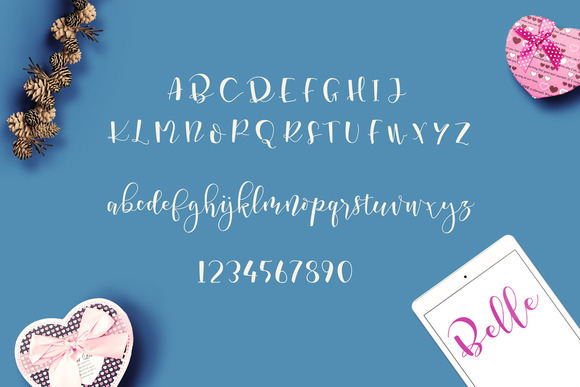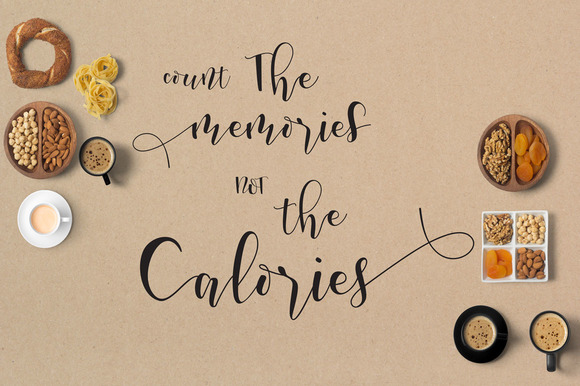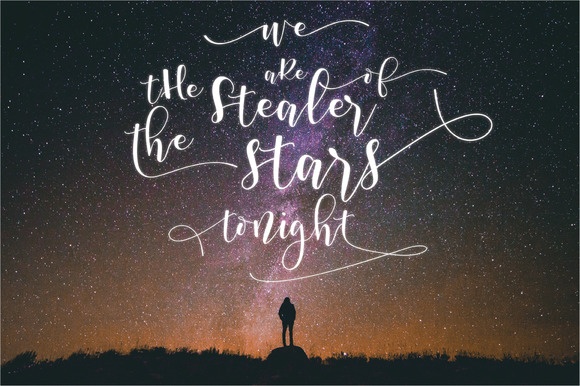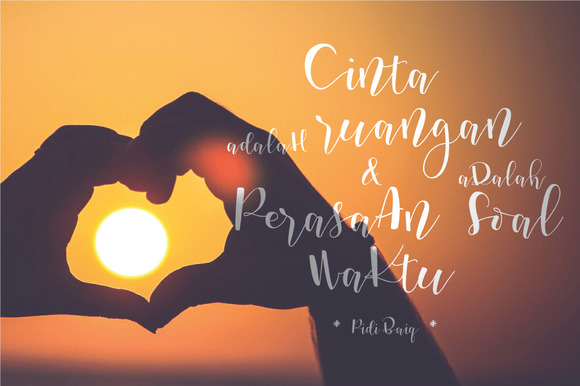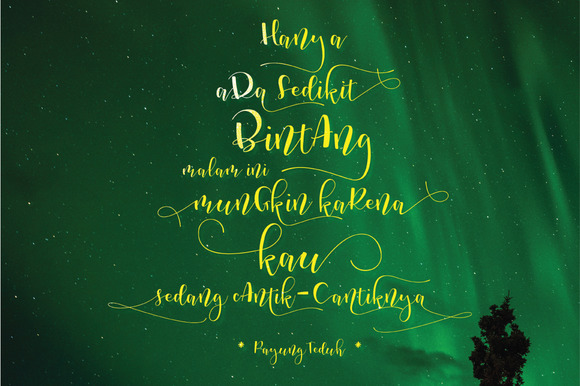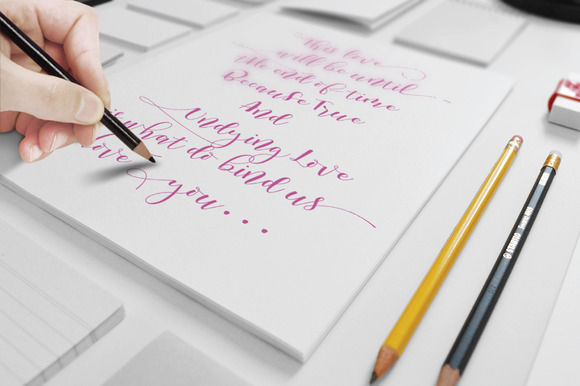
Introduction to Marsha Belle Script Font
Marsha Belle is a modern lettering typeface that comes with a dancing up and down baseline.
This beautiful font works properly and perfectly for logos, wedding invitation cards, stationary, packaging, clothing, flyers, apparels, magazines, brochures, headings, signatures, labels, news, posters, badges, etc This beauty font was PUA encoded.